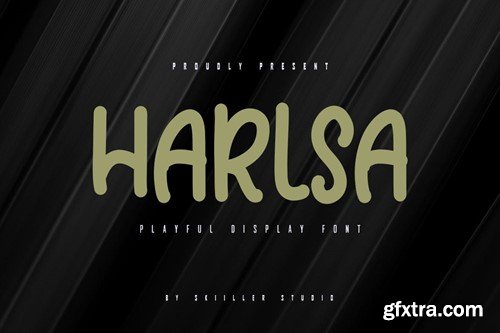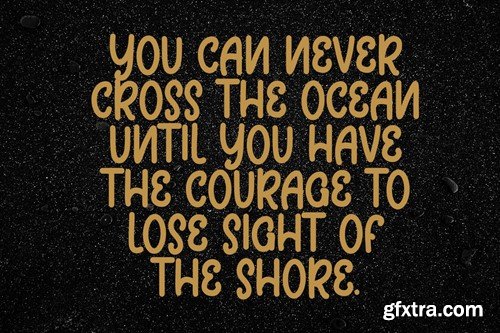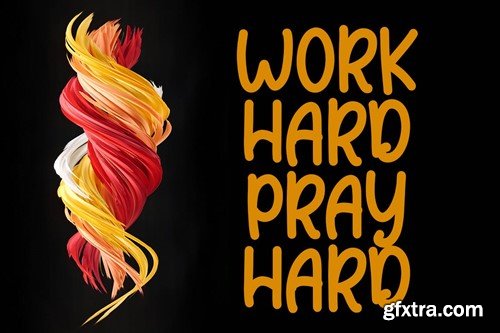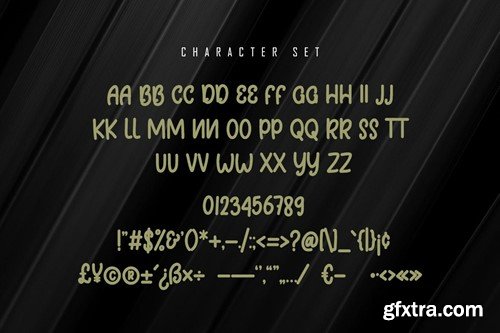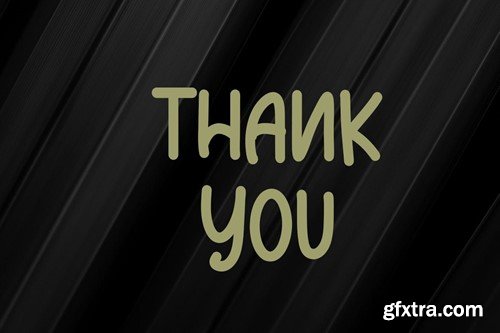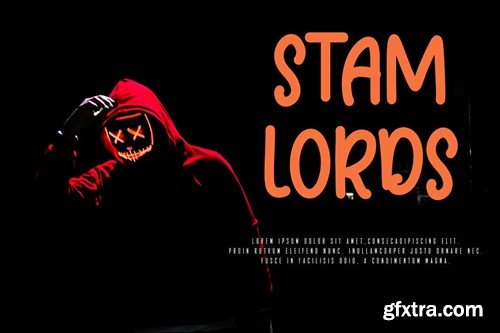
Harrysa - 玩趣字体 E3P9H2H
Harlsa - Playful Font E3P9H2H
Harlsa - Playful Font
Harlsa is a handwritten font, cool, beautiful, and very suitable Handwritten font to support your presentation and support in marketing your products and business